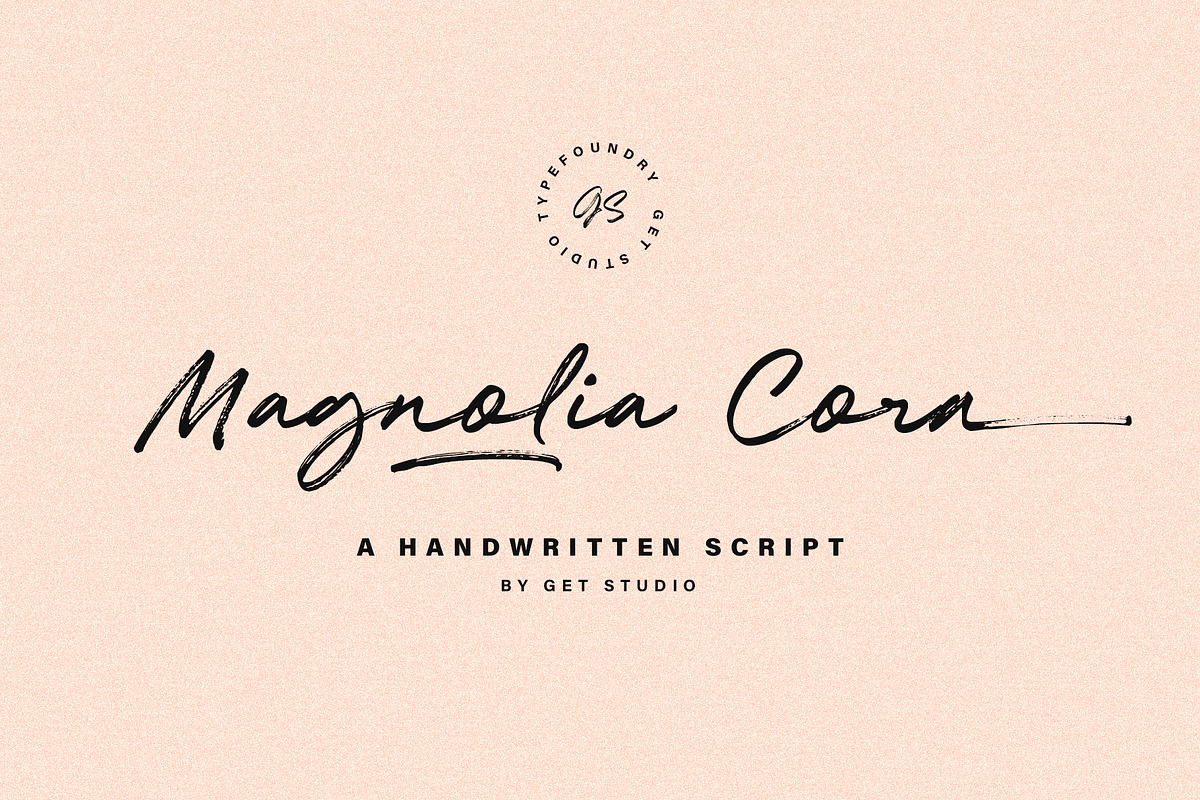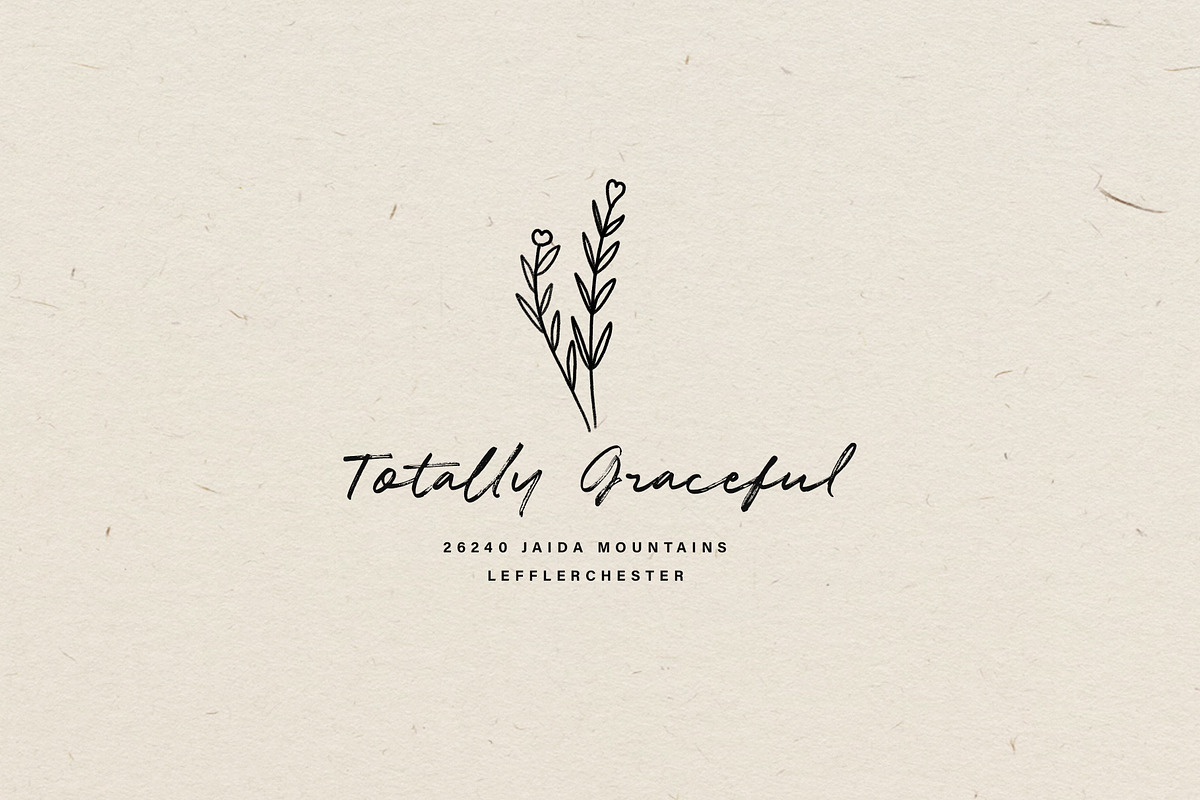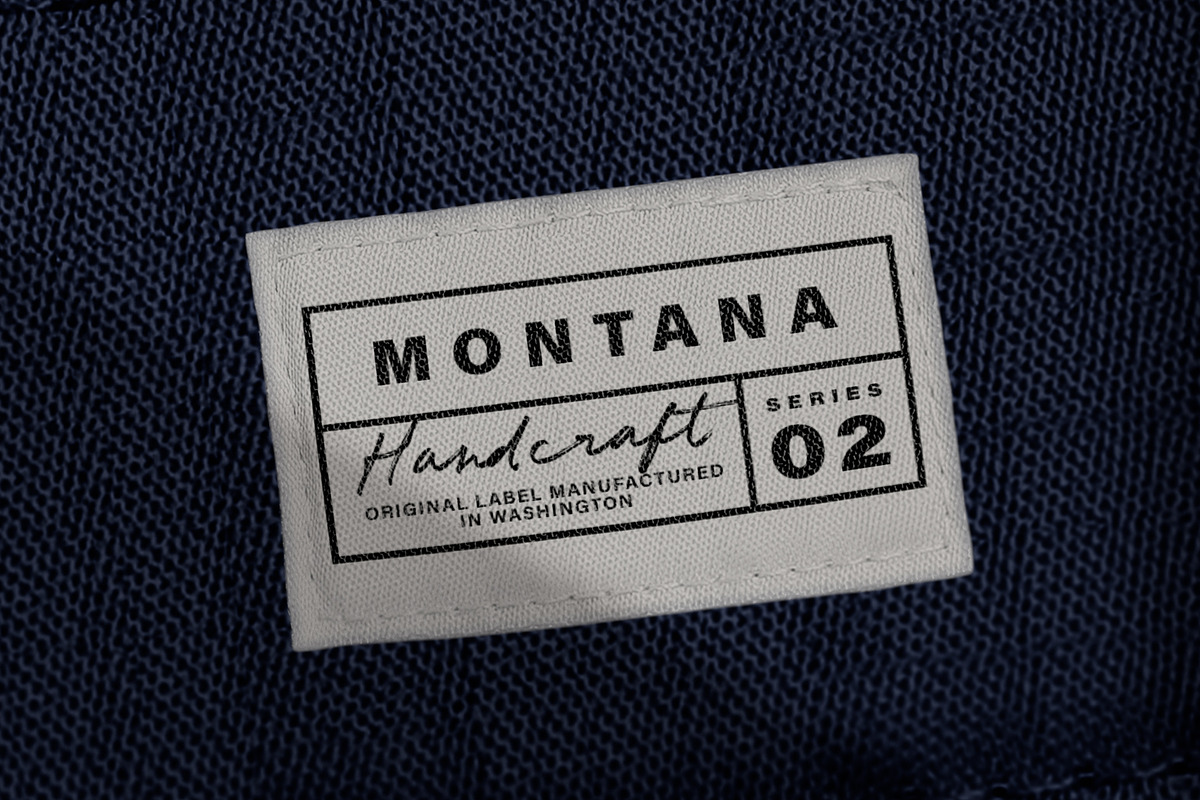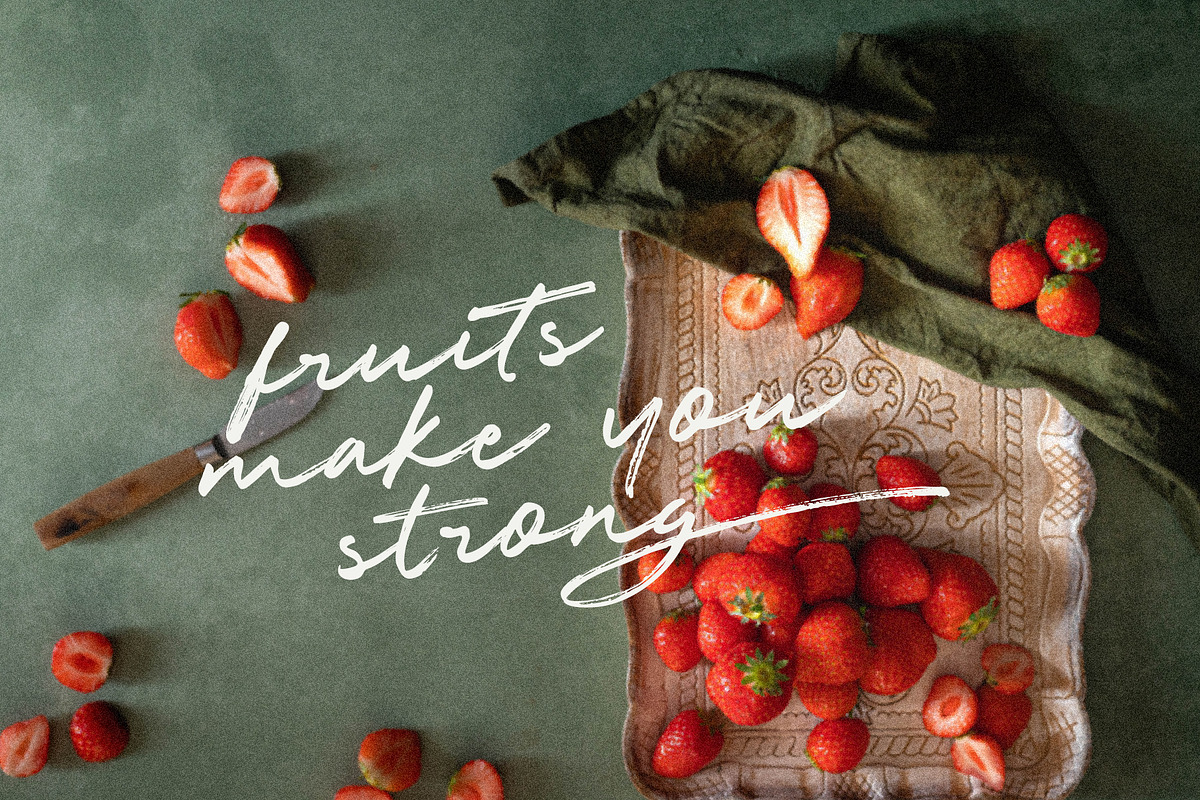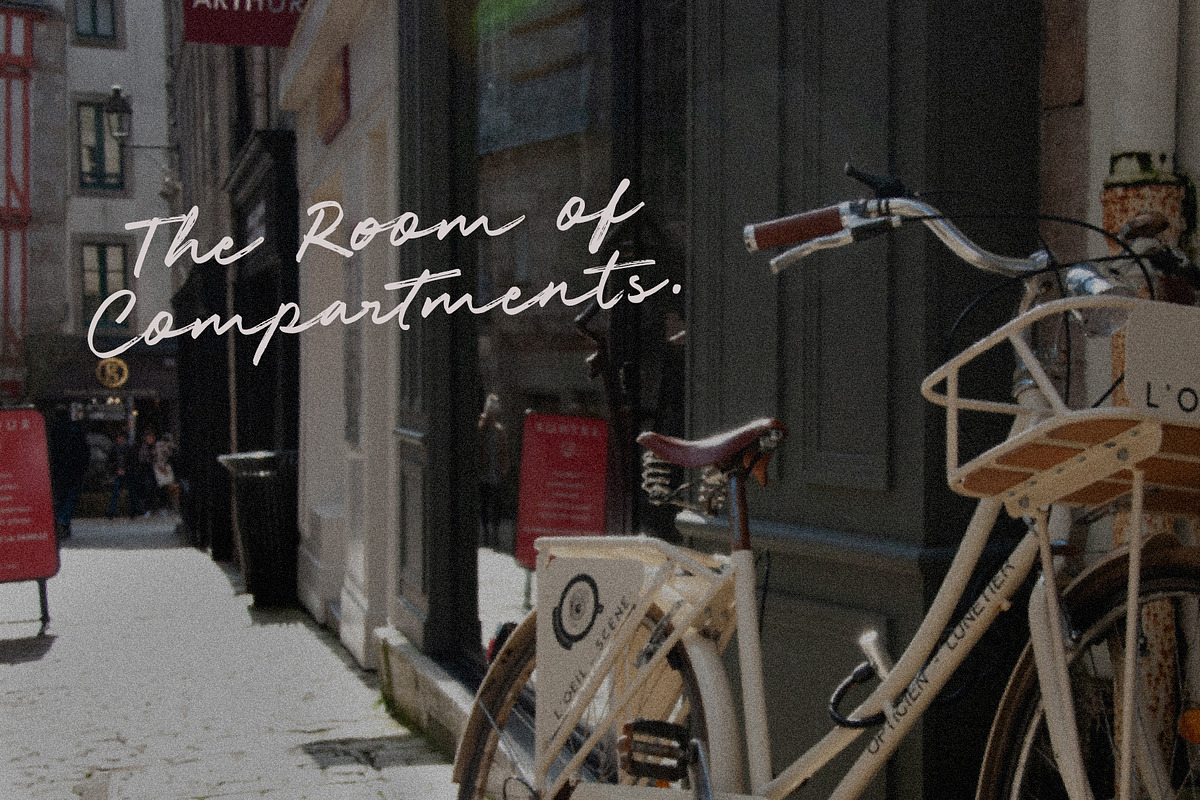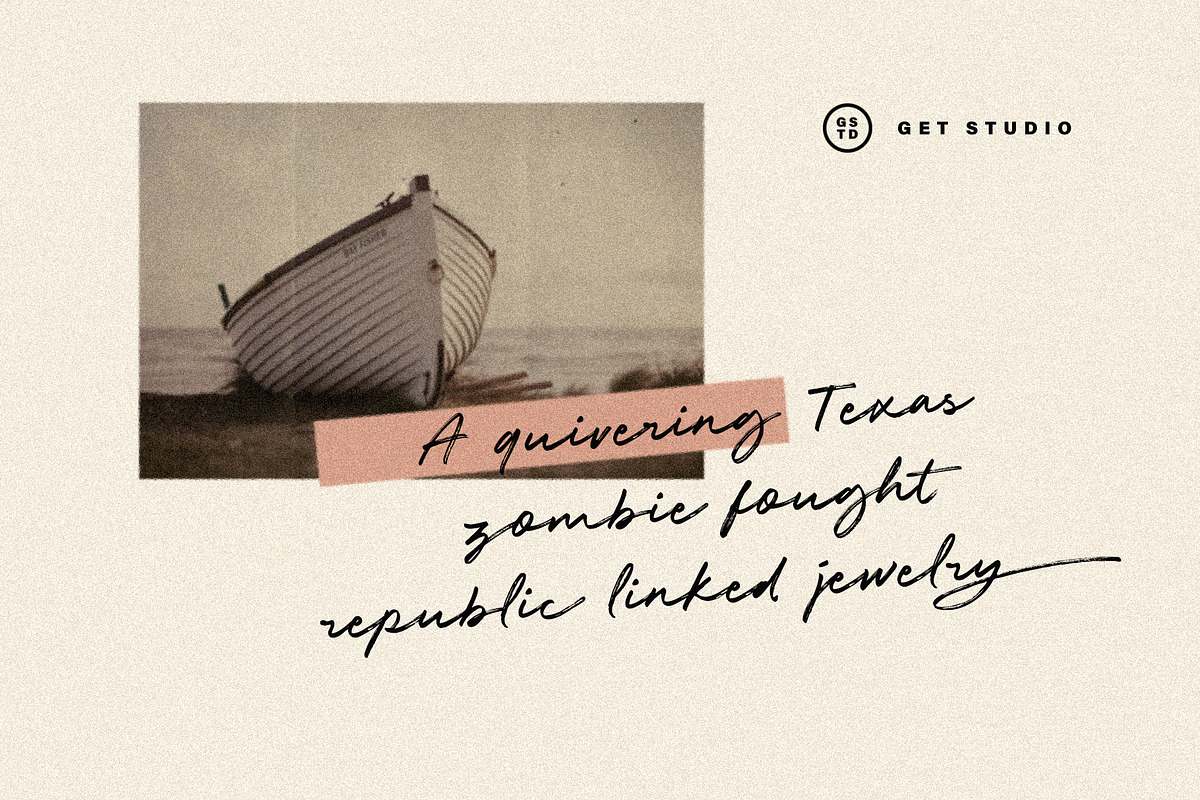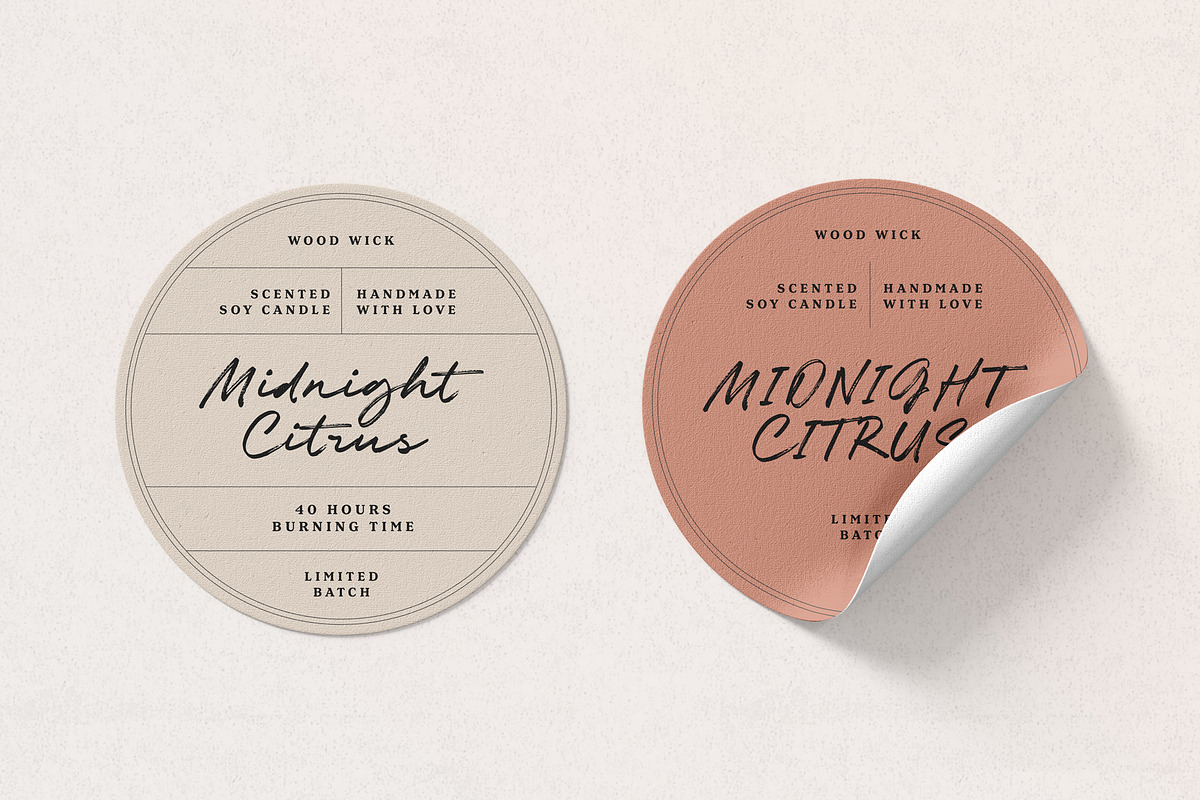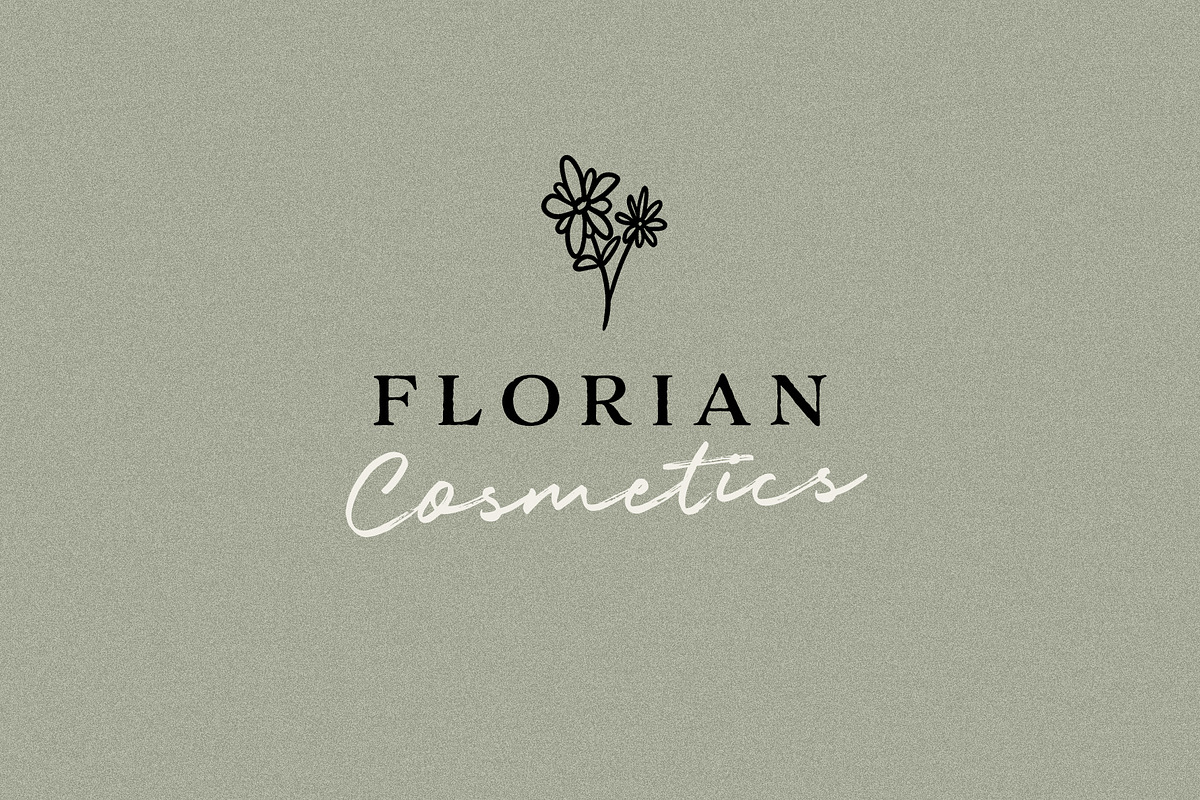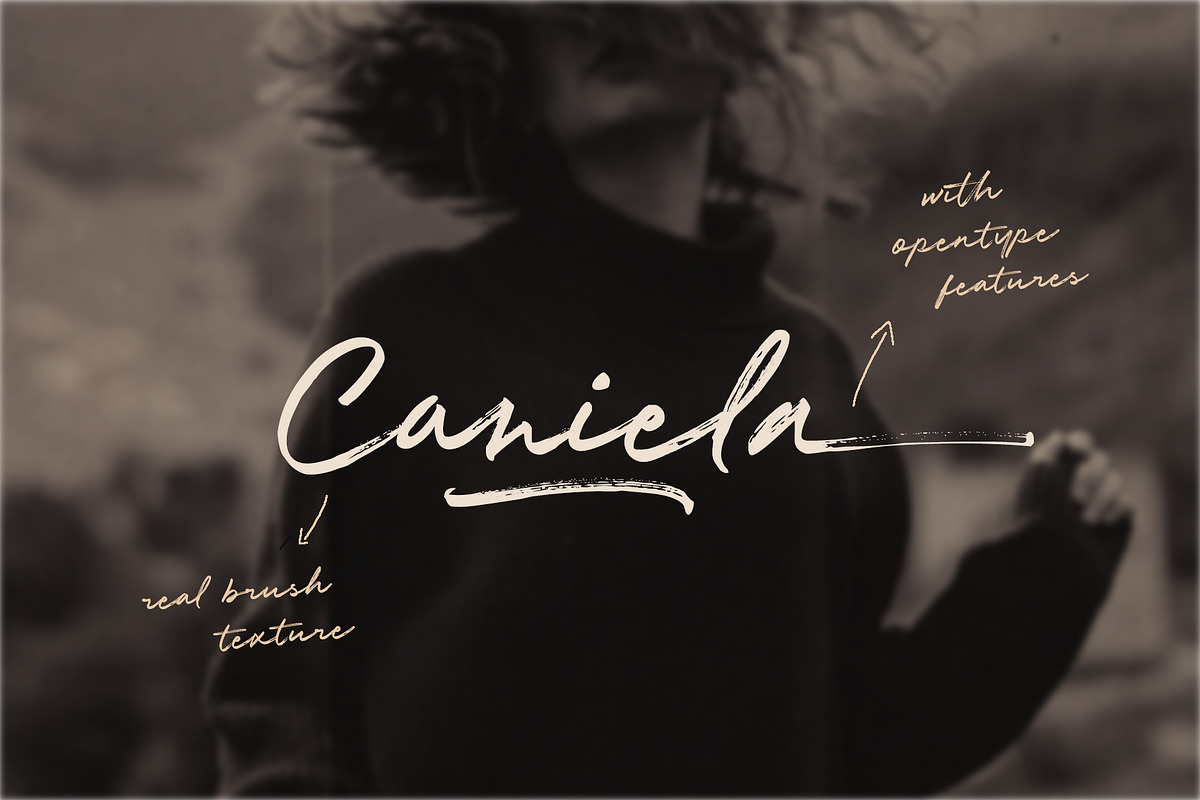
Magnolia Cora Script
Introducing Magnolia Cora Script, a handwritten font with a casual and strong character crafted with real brush textures, giving you a custom-made feel to your design work.
Magnolia Cora Script can be used for various types of design needs such as branding materials, Invitation, social media templates, t-shirts, business cards, logos, promotional flyers, posters, and more.
With multilingual support, this font is also suitable to be combined with san-serif to get an extraordinary result for your design projects.